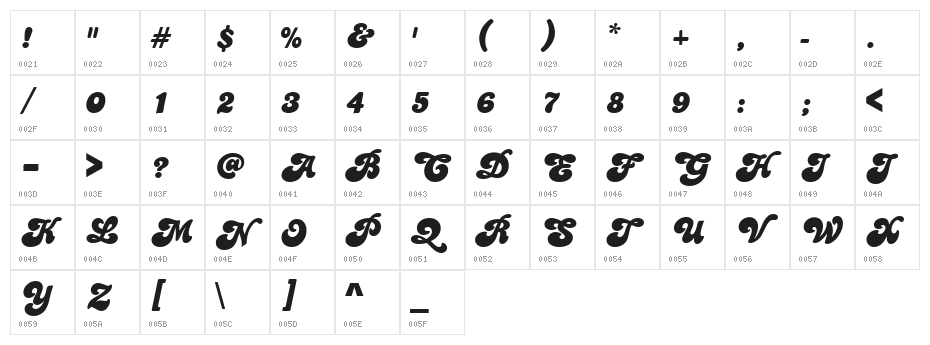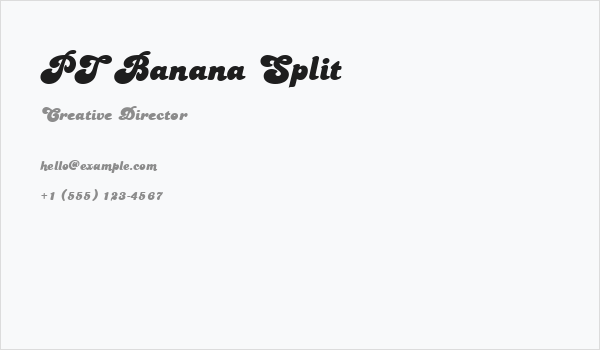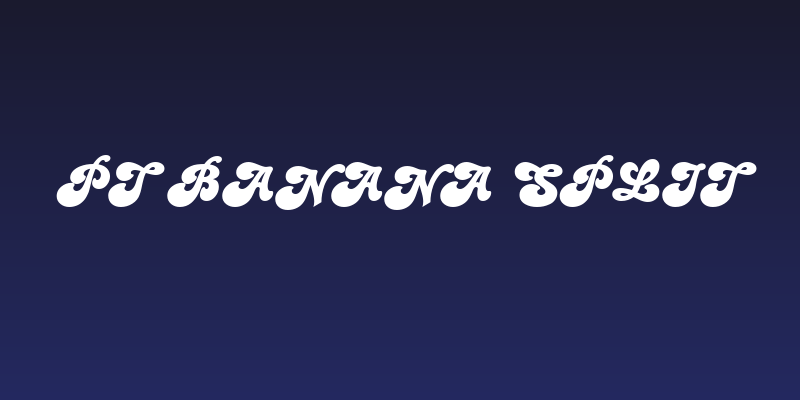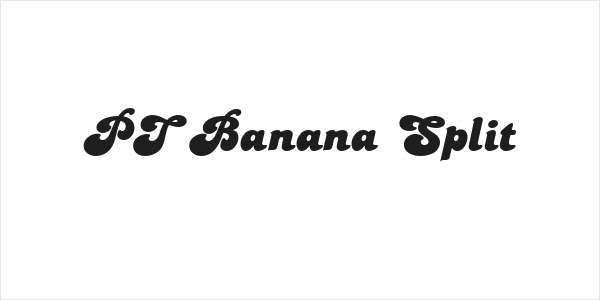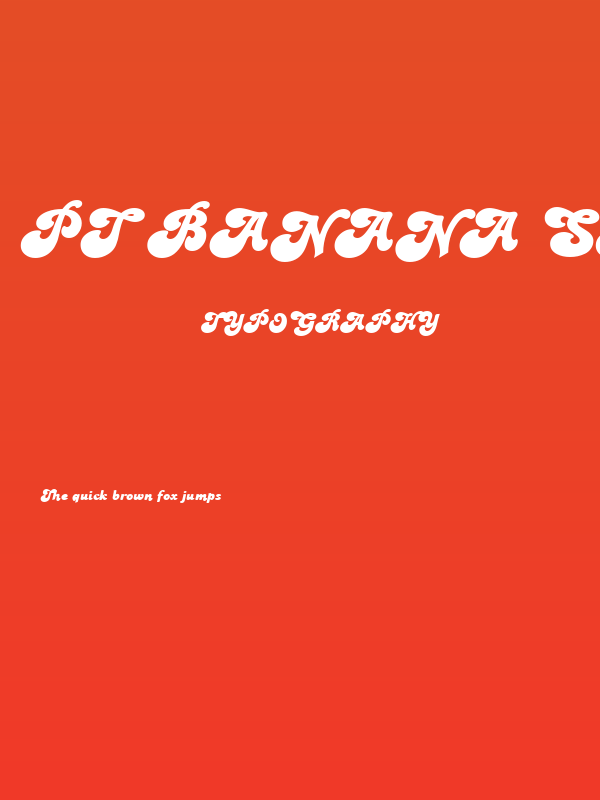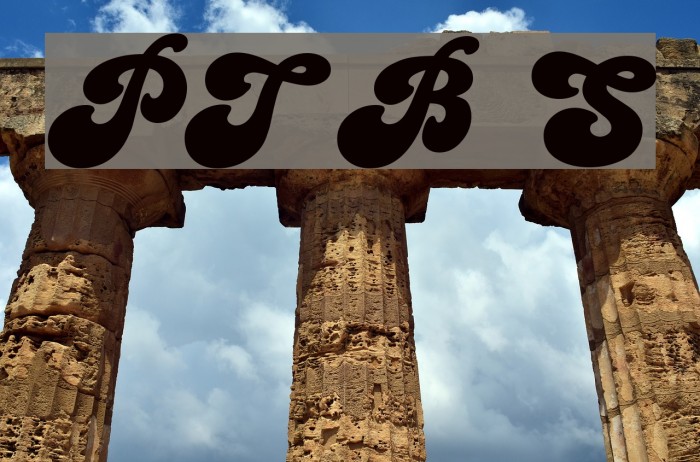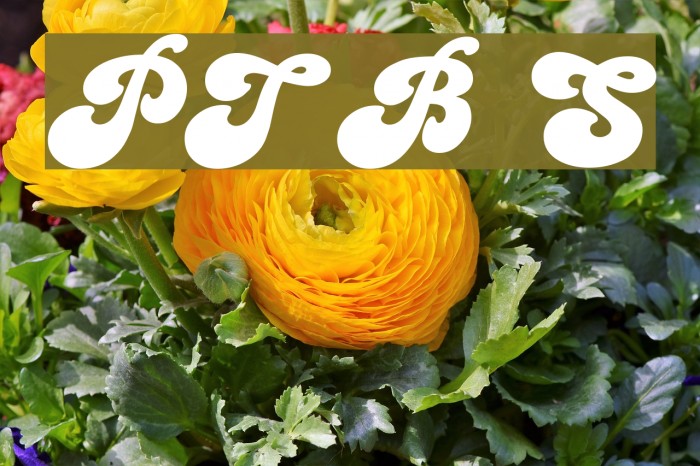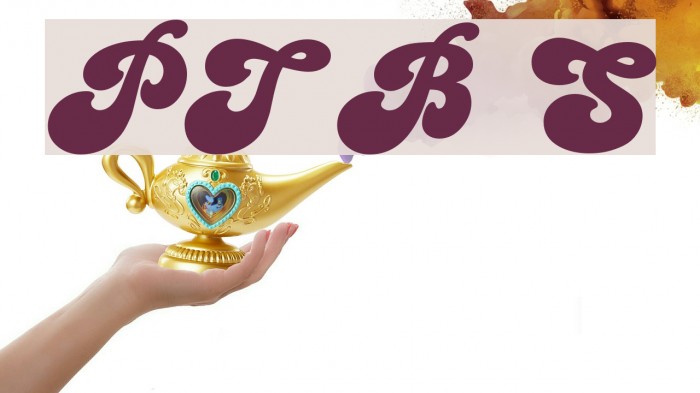
PT Banana Split Font
PT Banana Split Description
This playful and bold font features a whimsical, rounded style with a strong presence. The characters are thick and have a smooth, flowing appearance, reminiscent of a fun and lively script. The uppercase and lowercase letters maintain a consistent weight, creating a cohesive look. The numbers and special characters are equally bold, ensuring readability and uniformity across all elements. The font's overall design exudes a sense of joy and creativity, making it ideal for projects that require a touch of personality and flair.
| Overall Style | Playful and Whimsical |
| Use Case | Logos, Headlines, Posters |
| Proposed Projects | Ideal for children's books, playful branding, party invitations, and creative posters. |